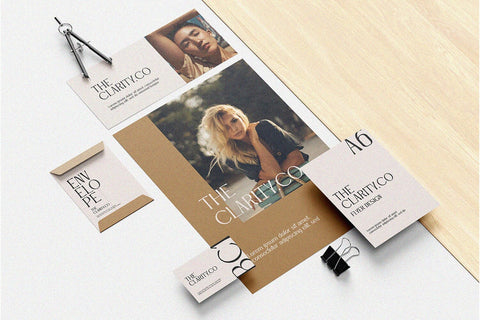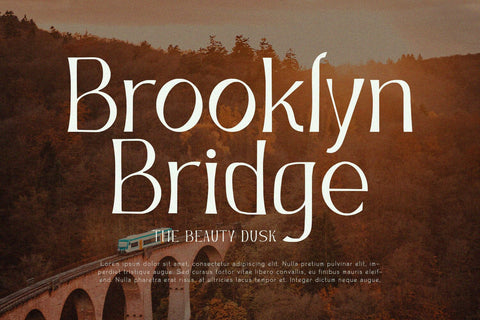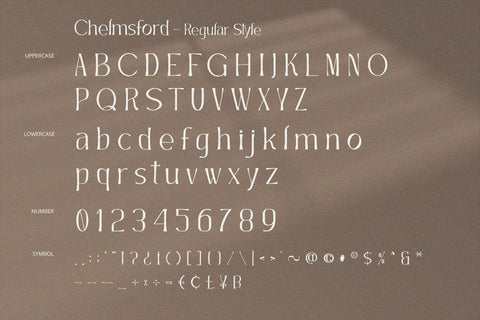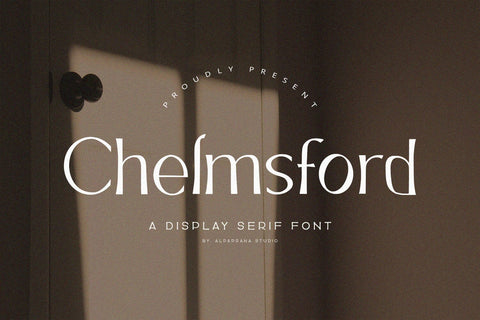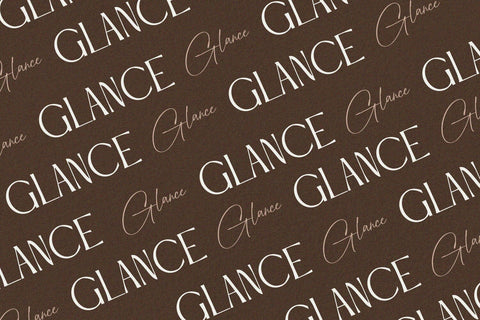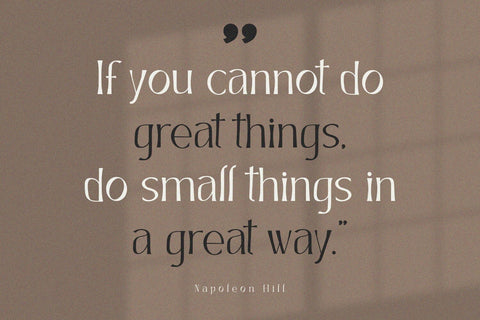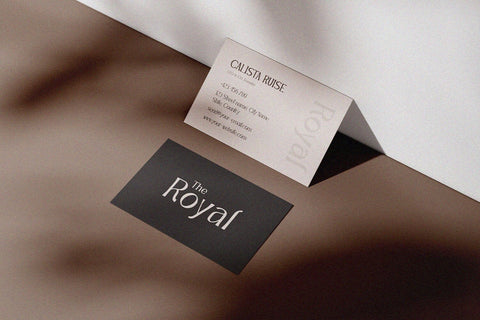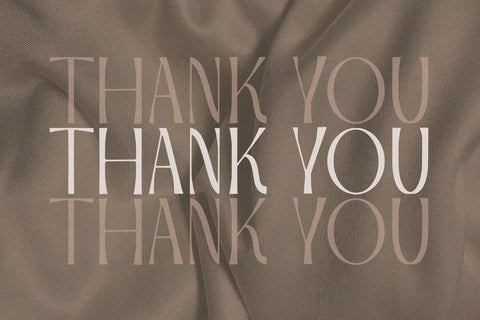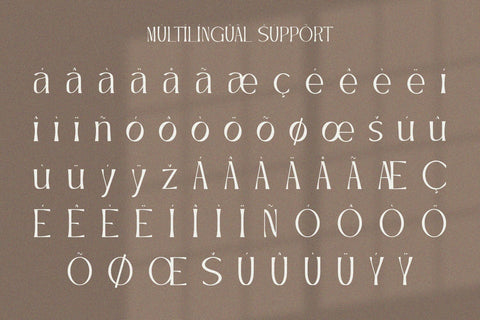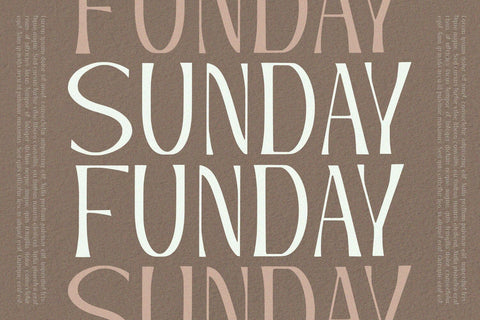
Chelmsford - Display Serif Font
Chelmsford is display serif font with elegant and modern feels. It will be perfectly used for Branding, Logo Design, Lettering, Logotype, Clothing, Poster, magazine, packaging, posters, shopping bags, t-shirts, book covers, photography, special events and other design project.